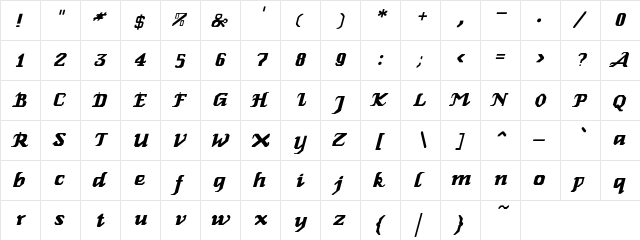
Elba-Italic Regular
Design Context for Elba-Italic Typeface
Elba-Italic is a composed and adaptable typeface that performs quietly and consistently across a wide range of design contexts. The dynamic lean of this cut emphasises speed and emphasis in any layout.
Pro Tip: Try Elba-Italic for annotation and caption copy alongside an upright companion — the contrast in angle creates a dynamic but ordered typographic system.